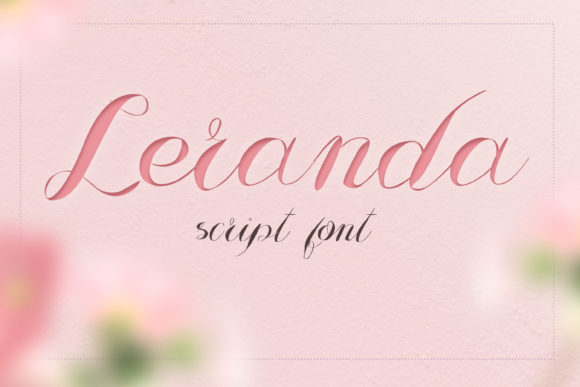
Delve into the world of Leranda Font, a script font that captivates with its graceful strokes and delicate charm. This masterpiece from DIGI Potwor epitomizes elegance and fluidity, leaving an unforgettable impression on any design it adorns.
With its romantic essence, Leranda Font adds a touch of enchantment to wedding invitations, transforming them into cherished keepsakes. Its flowing style lends a timeless beauty to greeting cards, expressing heartfelt sentiments with an artistic flair. Anniversary celebrations take on a new level of sophistication when adorned with Leranda's graceful curves, creating memories that last a lifetime.
Beyond formal occasions, Leranda Font shines in non-formal contexts as well. Its versatility allows it to effortlessly elevate social media posts, blog designs, and personal branding projects, injecting a touch of creativity and personality into every digital space.
Unleash your artistic vision and let Leranda Font guide your designs to new heights. Its versatility knows no bounds, making it the perfect companion for logos, posters, and marketing materials that demand attention.
Tap into the power of Leranda Font today and unlock a world of creative possibilities. With its captivating style and boundless applications, this font is destined to become your go-to choice for creating designs that leave a lasting impression.